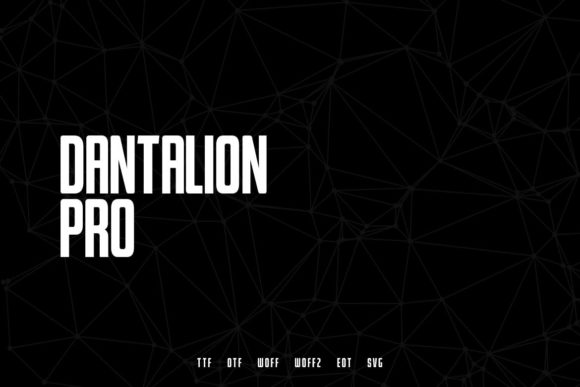
Introducing Dantalion Font - The Epitome of Minimal Elegance for Your Design Masterpieces
In a world saturated with visual noise, simplicity reigns supreme. Dantalion Font emerges as a breath of fresh air, a testament to the power of minimalism and understated elegance. This sans serif font, meticulously crafted by the font artisans at Webhance, is not just a collection of letters and glyphs; it's an invitation to explore the realm of clean, modern aesthetics.
With its inherent simplicity, Dantalion Font seamlessly harmonizes with a myriad of design concepts, effortlessly enhancing your creative vision. Its natural and unique style lends an air of sophistication to any project, whether it's a stunning poster, an alluring logo, or a captivating website. Experience the transformative power of Dantalion Font and elevate your designs to new heights of visual appeal.
Unleash Your Creativity with Dantalion Font - The Perfect Font For Poster
In the realm of poster design, Dantalion Font reigns supreme. Its clean lines and minimalist charm provide the perfect canvas for your words and visuals to shine. Imagine your message emblazoned in the bold, confident strokes of Dantalion, capturing the attention of your audience and leaving a lasting impression. Dantalion Font is the ultimate tool for creating posters that resonate, posters that speak volumes without uttering a single word.
Beyond posters, Dantalion Font's versatility extends to a vast array of design applications. Its understated elegance lends a touch of refinement to logos, branding materials, website designs, and even social media graphics. Dantalion Font seamlessly adapts to your creative vision, becoming an integral part of your design DNA. Experience the boundless possibilities of Dantalion Font and unlock a world of design excellence.
Embrace the Power of Simplicity - Dantalion Font, the Minimalist's Choice
In an era of visual overload, Dantalion Font offers a refreshing respite. Its minimalist aesthetic cuts through the clutter, allowing your designs to breathe and your message to resonate. With Dantalion Font, less is truly more. Its simplicity empowers you to create designs that are both visually appealing and thought-provoking, designs that transcend fleeting trends and leave an enduring legacy.
With Dantalion Font as your design companion, you'll discover a newfound appreciation for the beauty of simplicity. Its clean lines and unpretentious style will inspire you to create designs that are both impactful and enduring. Experience the transformative power of Dantalion Font and embark on a creative journey where elegance and minimalism reign supreme.